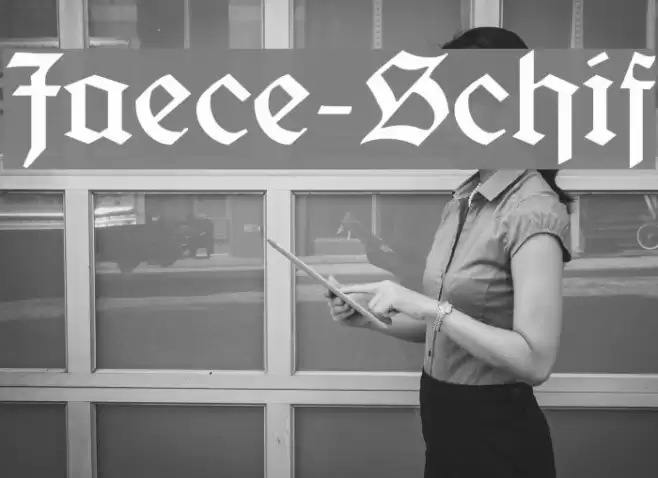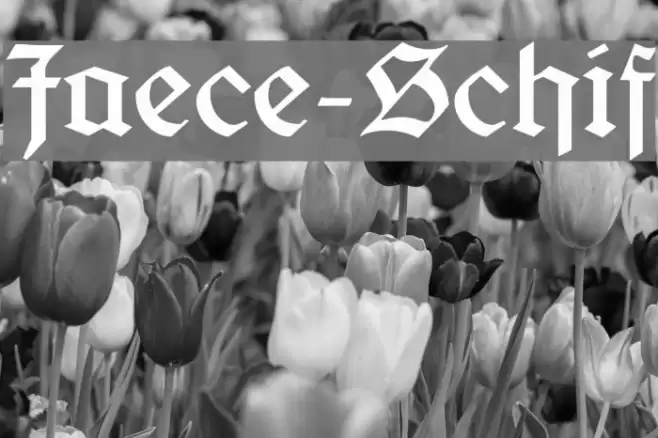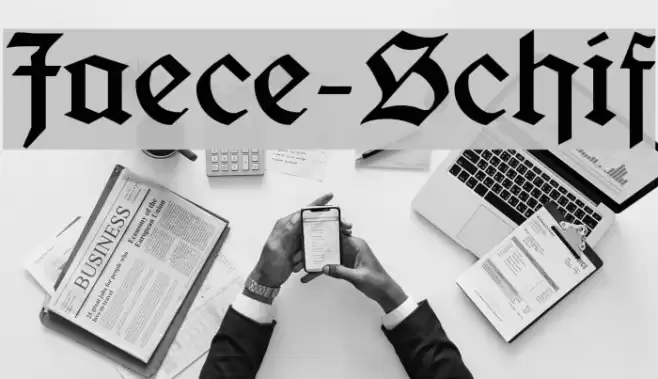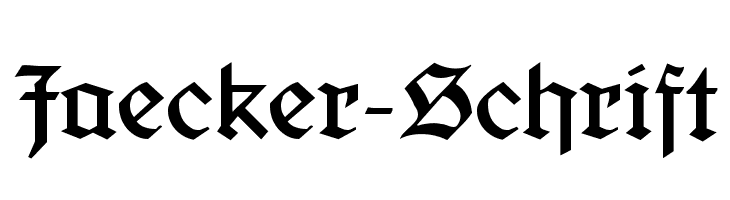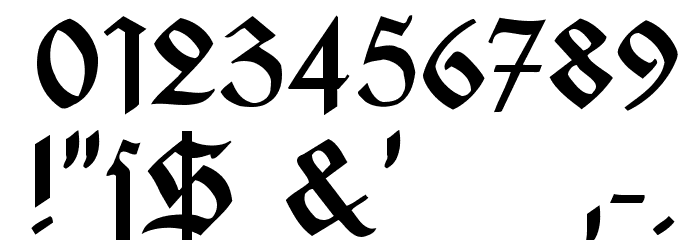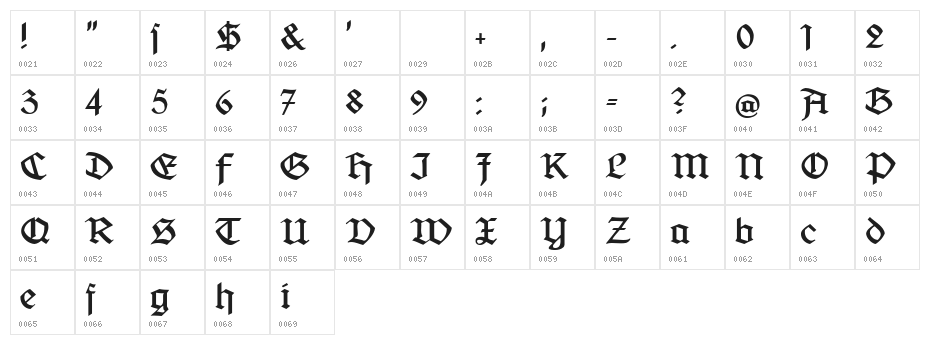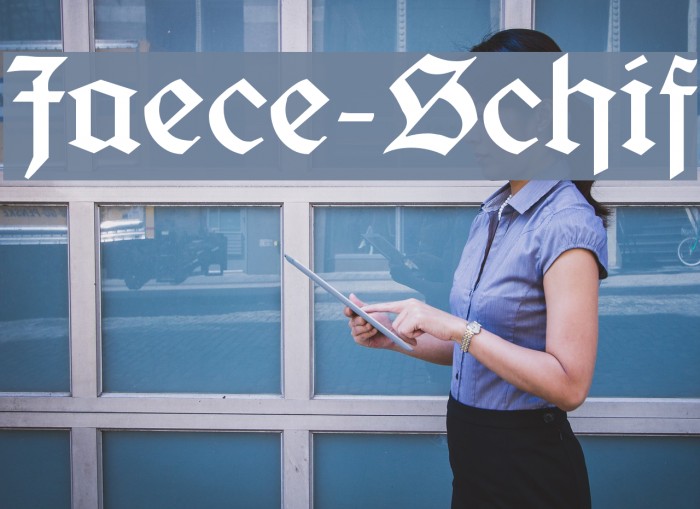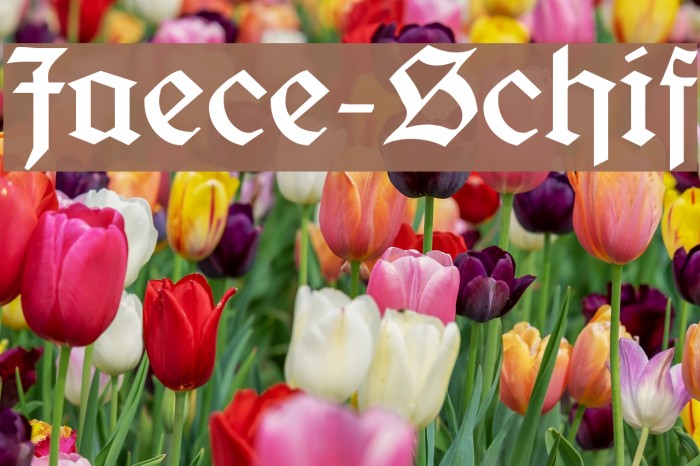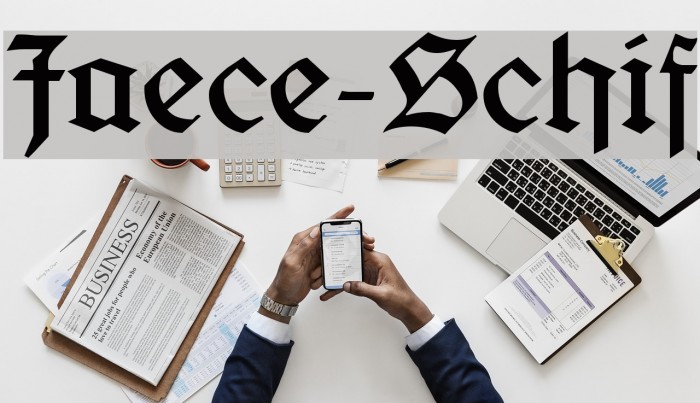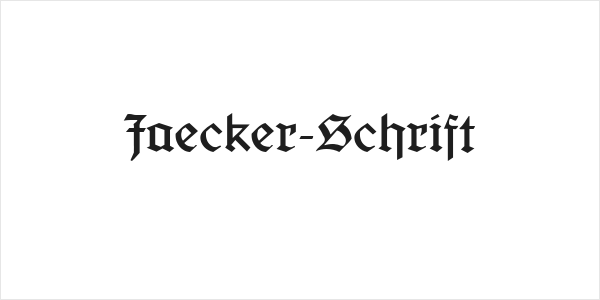
Jaecker-Schrift Font
Jaecker-Schrift Description
This font features a distinct blackletter style, characterized by its sharp, angular lines and ornate detailing. The uppercase letters exhibit a traditional Gothic influence, with pointed serifs and intricate curves that give it a historical and formal appearance. The lowercase letters maintain the same stylistic elements, ensuring consistency throughout the typeface. Numbers and special characters are designed with the same attention to detail, making them visually cohesive with the alphabet. The overall aesthetic is reminiscent of medieval manuscripts, offering a sense of antiquity and elegance.
A blackletter font with sharp, angular lines and ornate detailing, reminiscent of medieval manuscripts from Uncategorized fonts.
- Proposed Projects: Ideal for projects that require a historical or formal touch, such as certificates, invitations, book covers, or branding for luxury products.
- Overall Style: Vintage